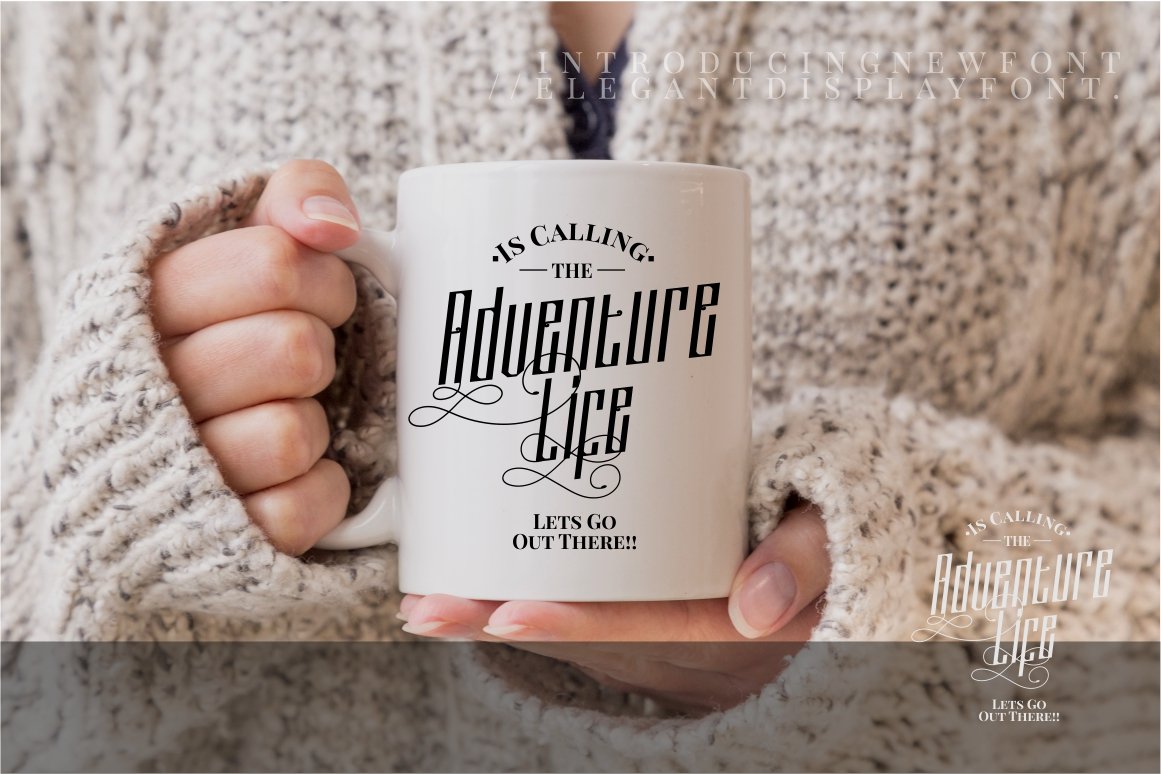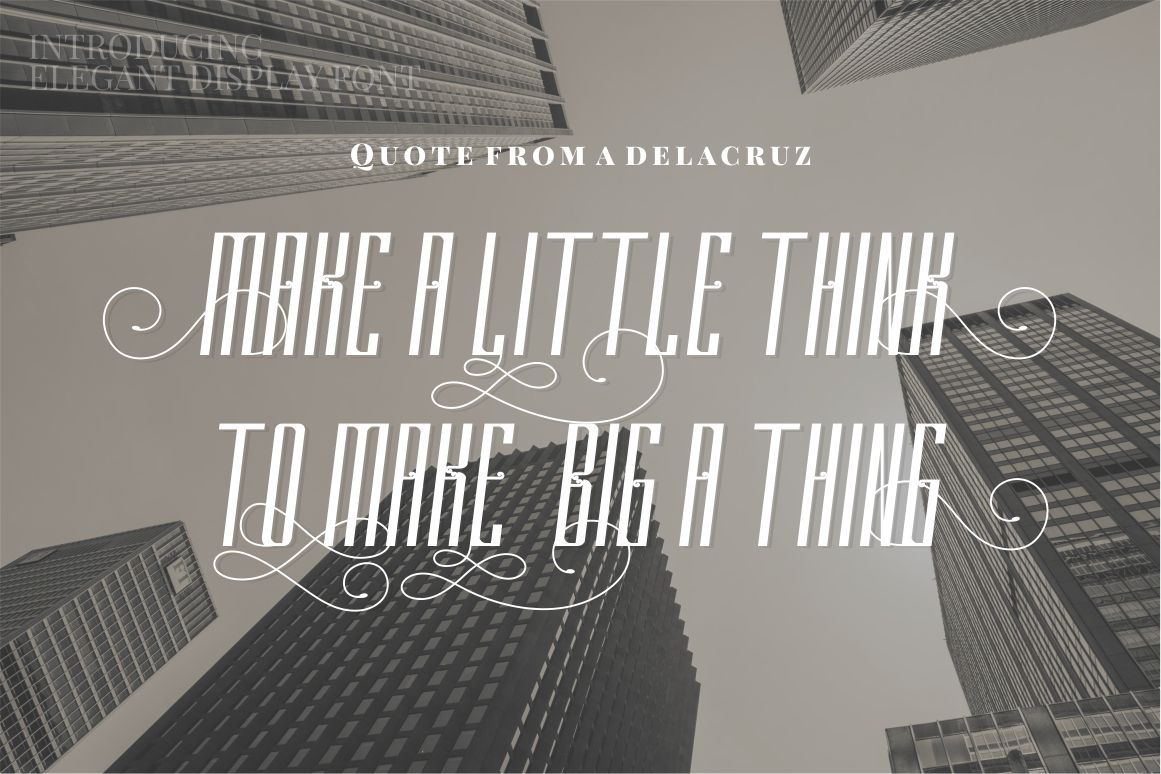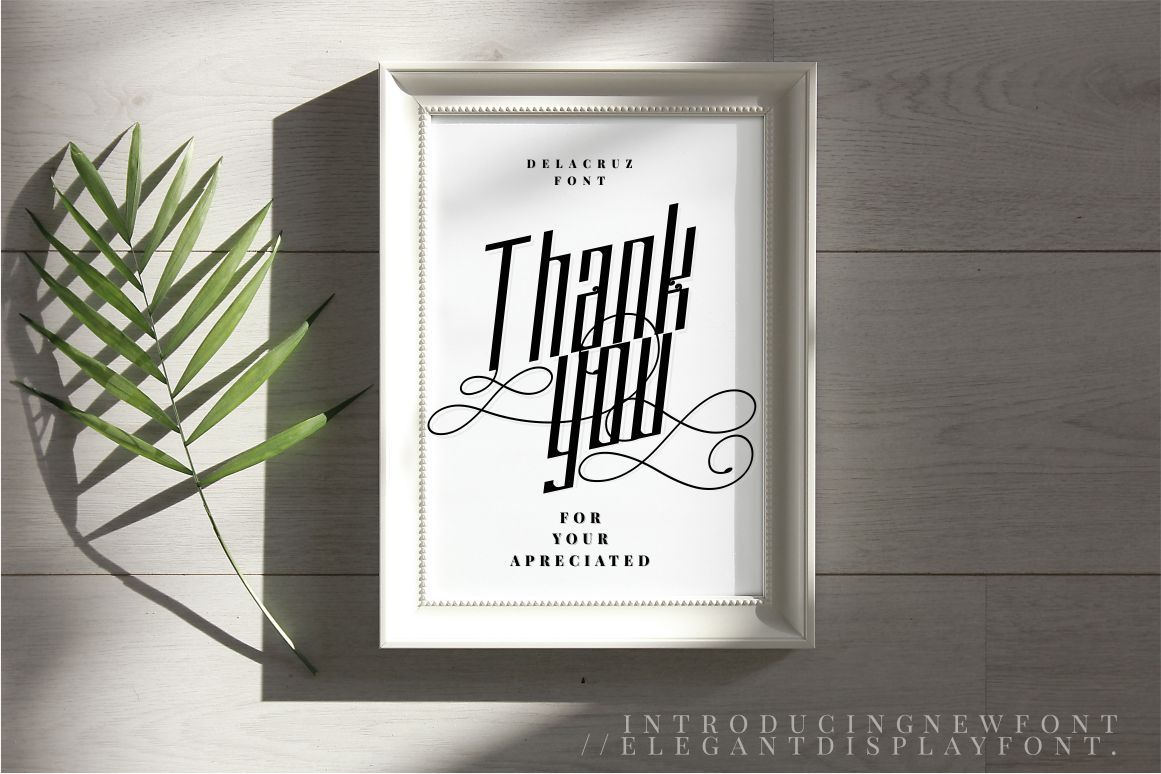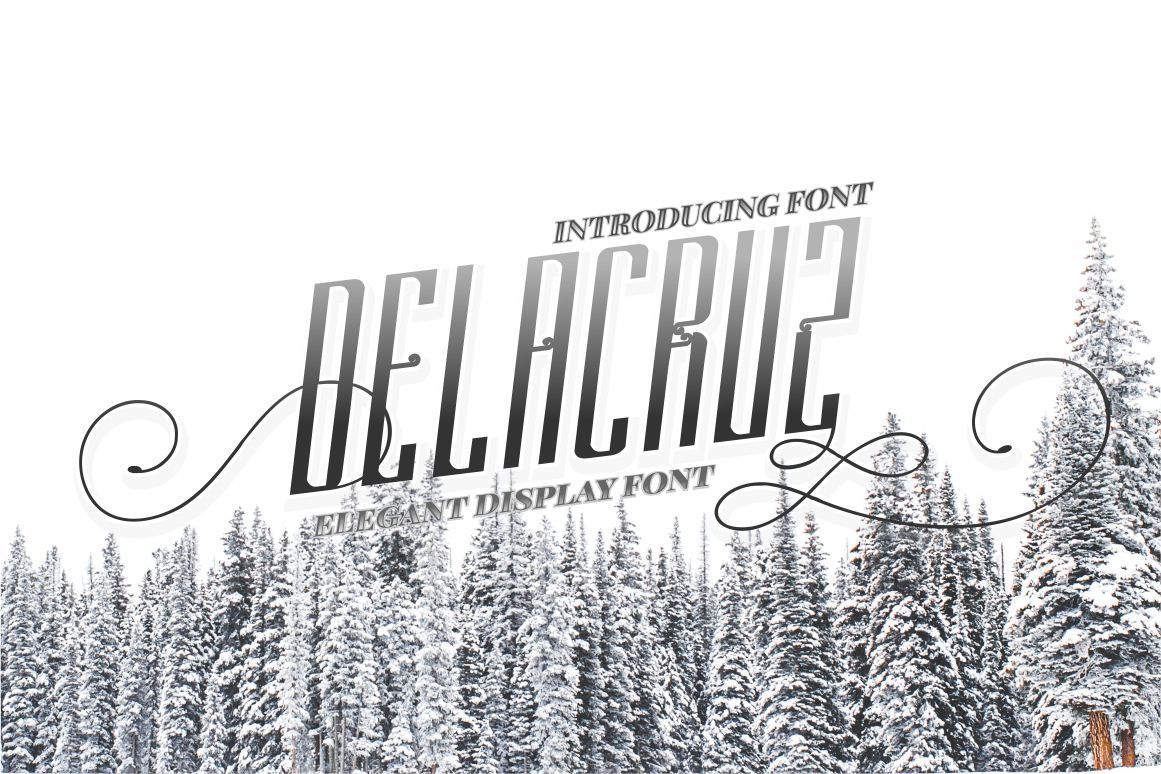
DELACRUZ - Free Elegant Sans Serif Font
DELACRUZ - Free Elegant Sans Serif Font for any designer that is looking to display their design professionally. Go give some love to Putracetol for creating this top-notch font. This is absolutely cool font so you can easily make world-class designs.